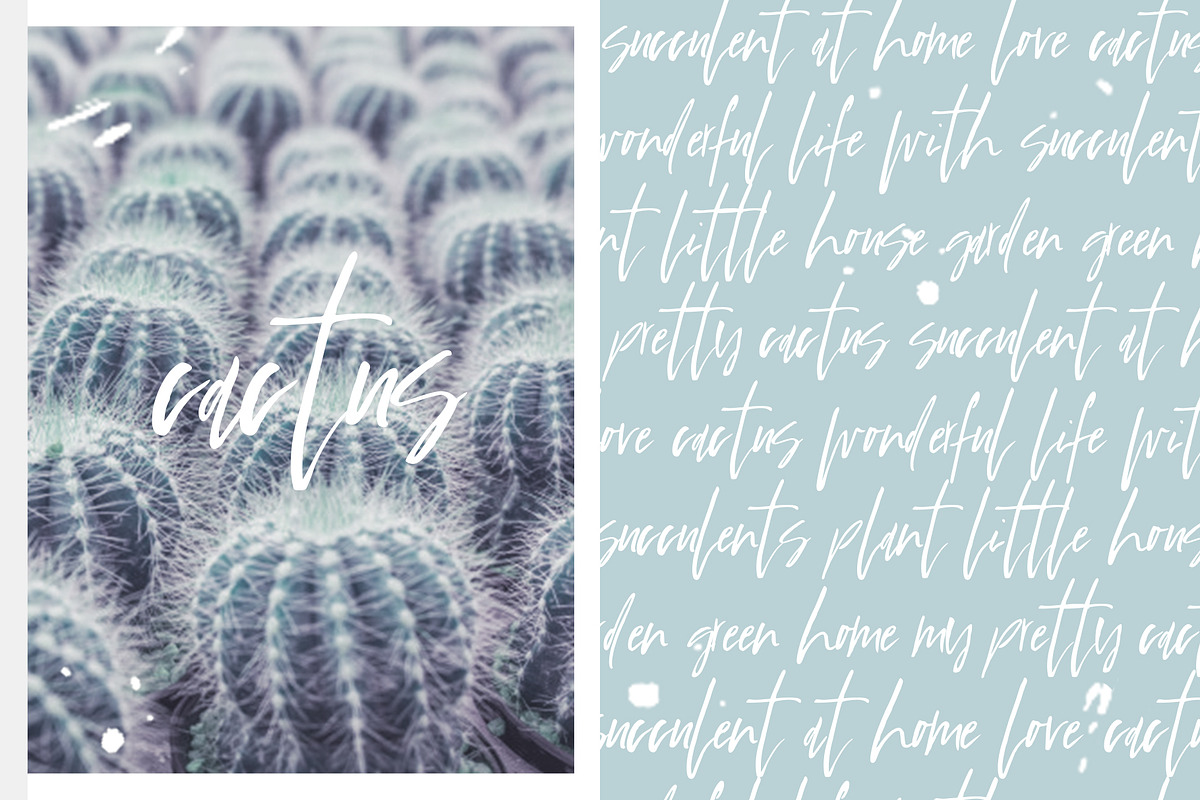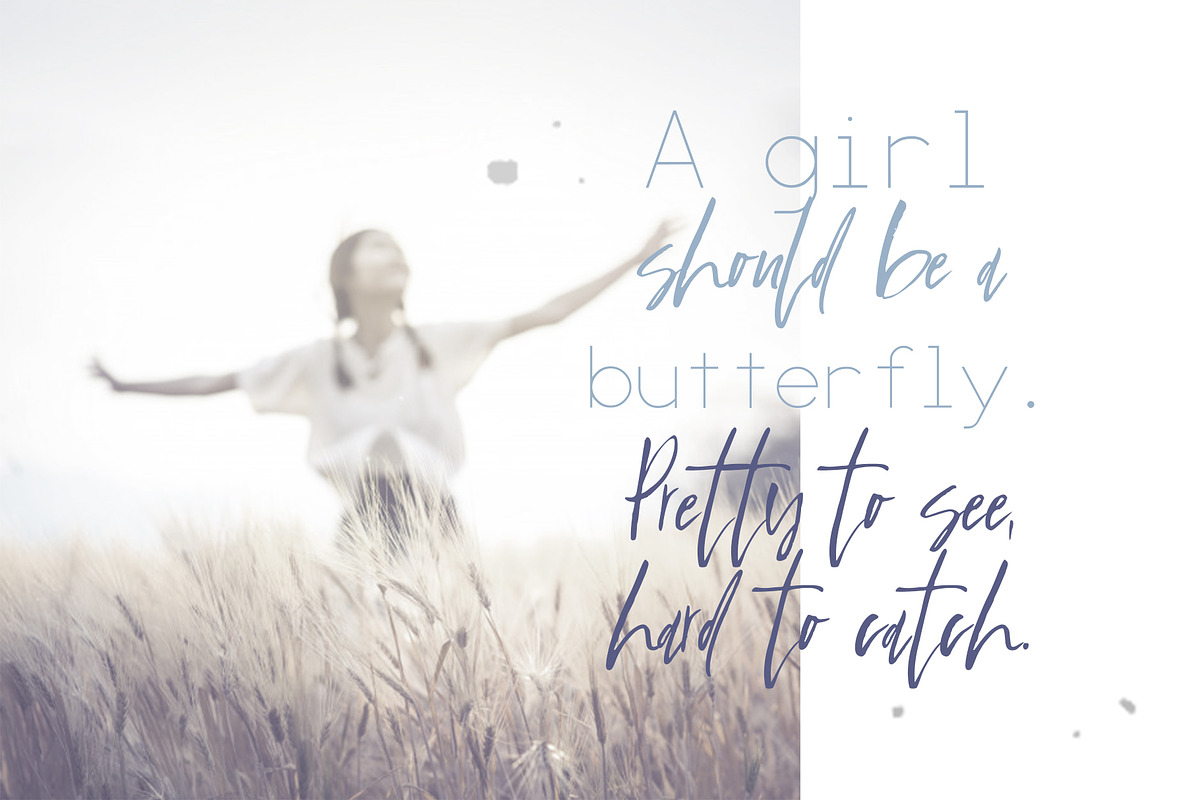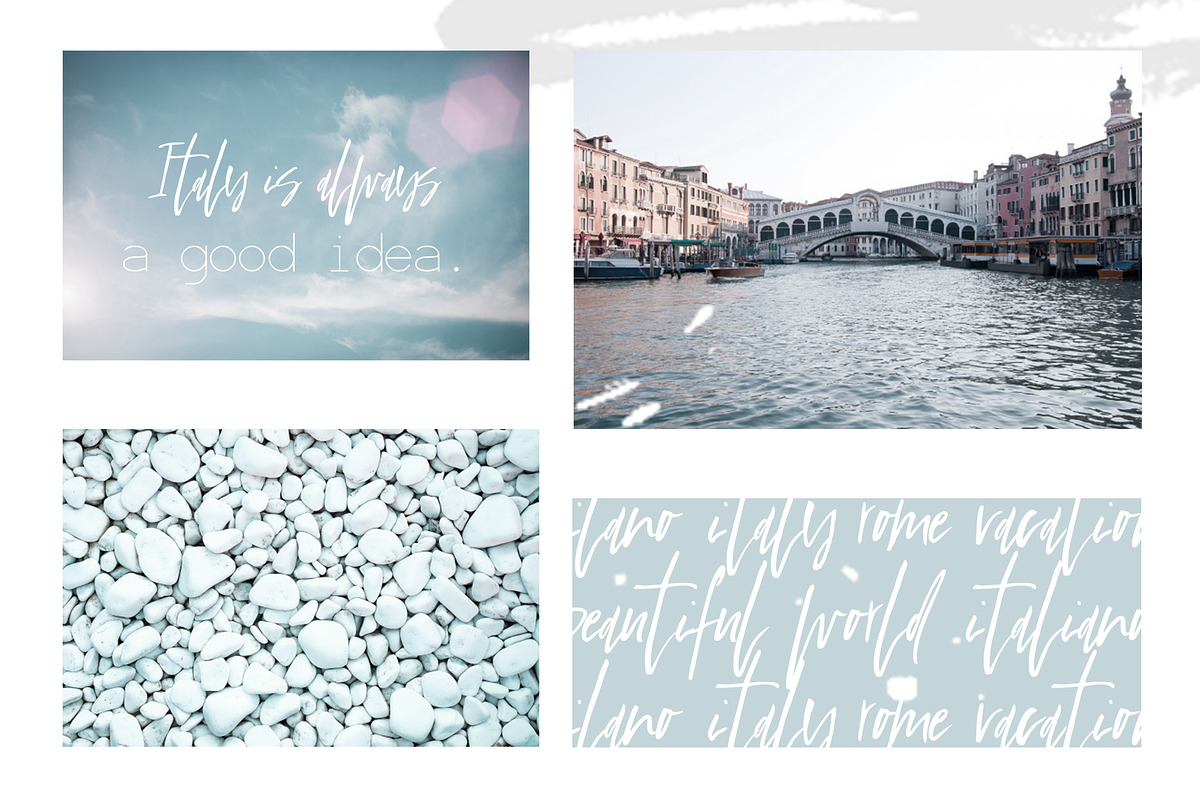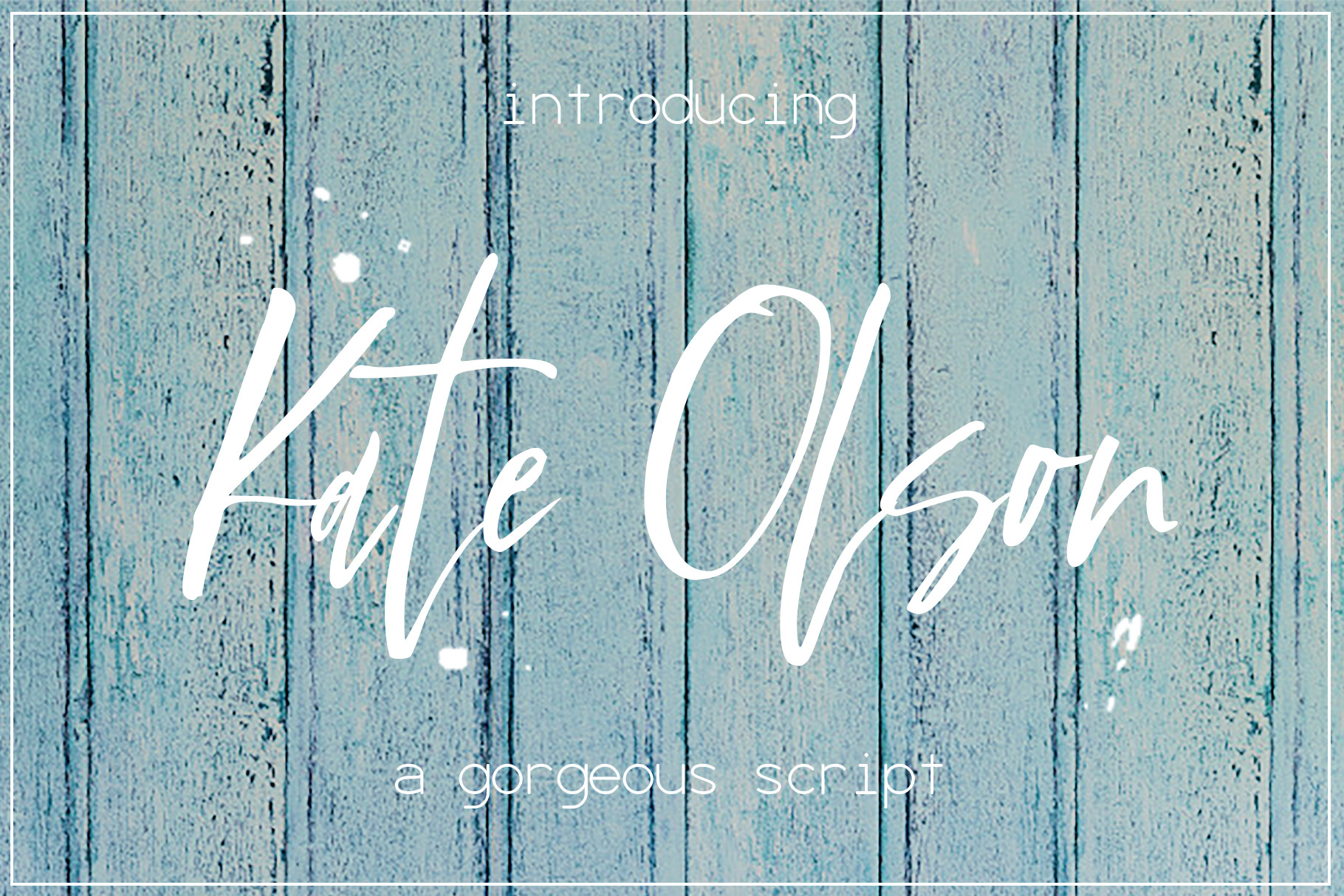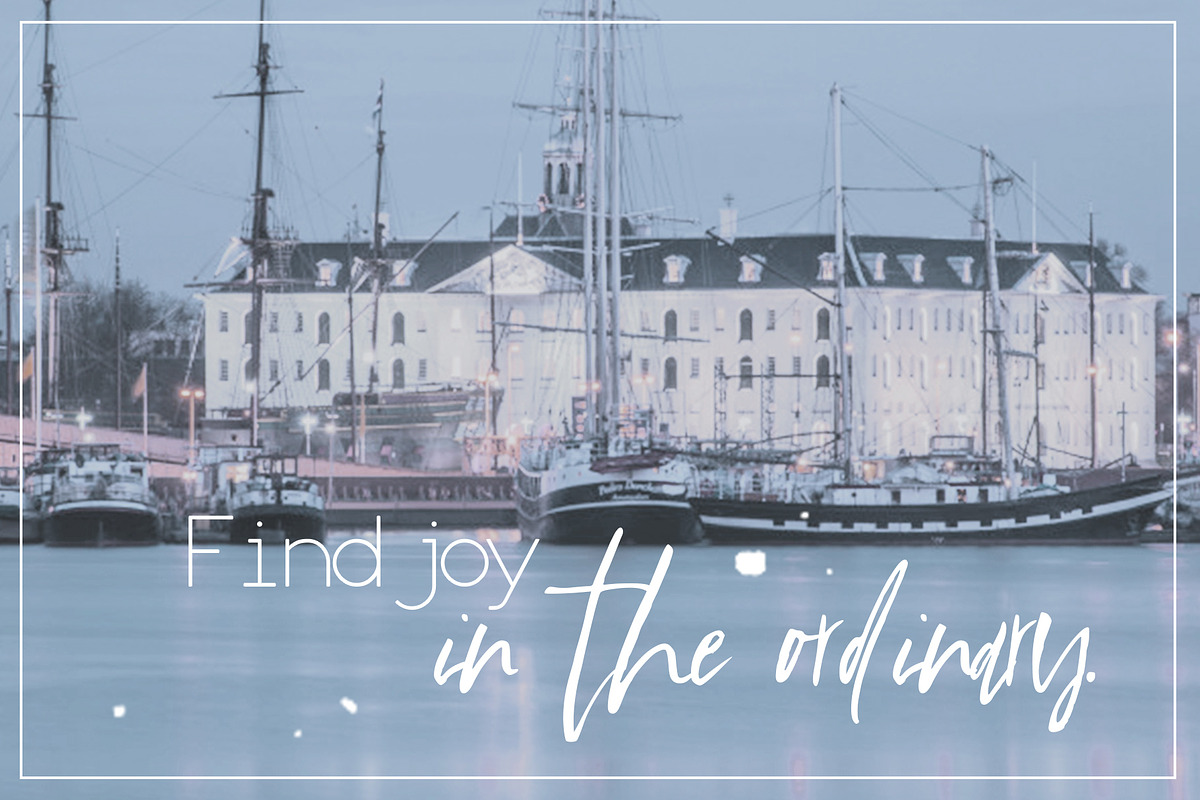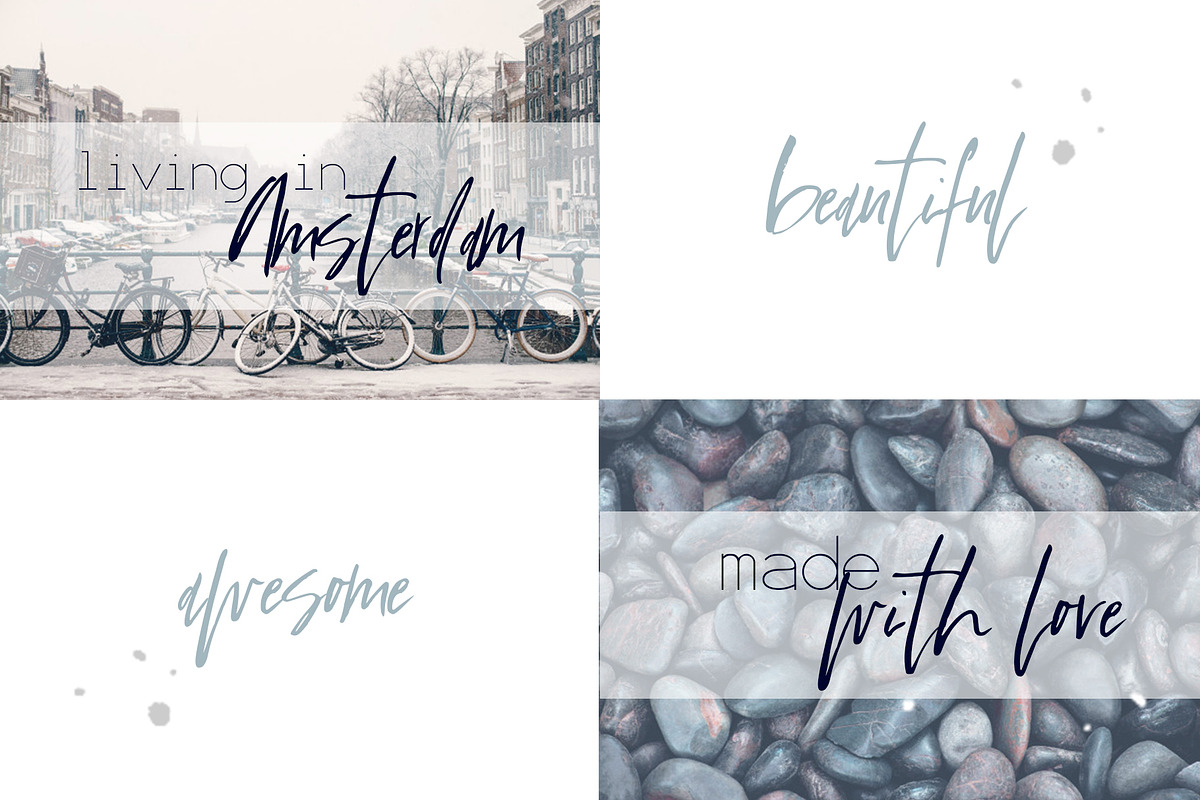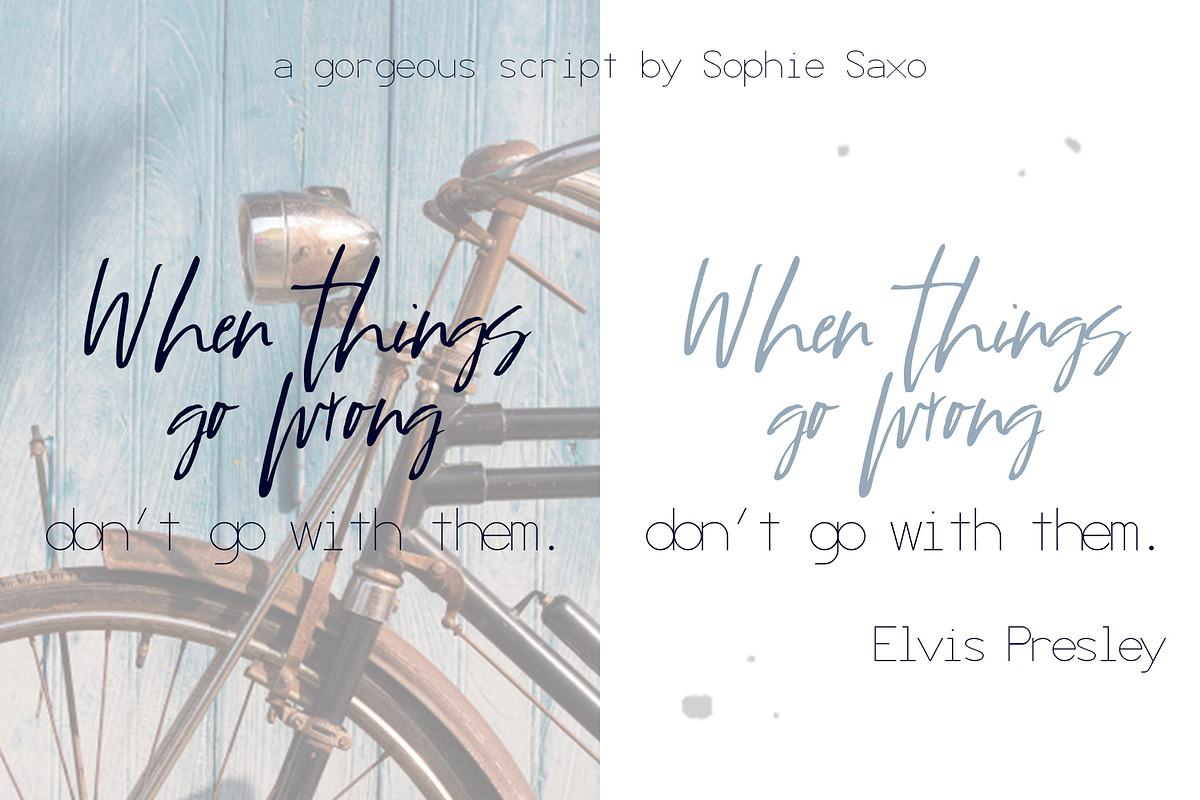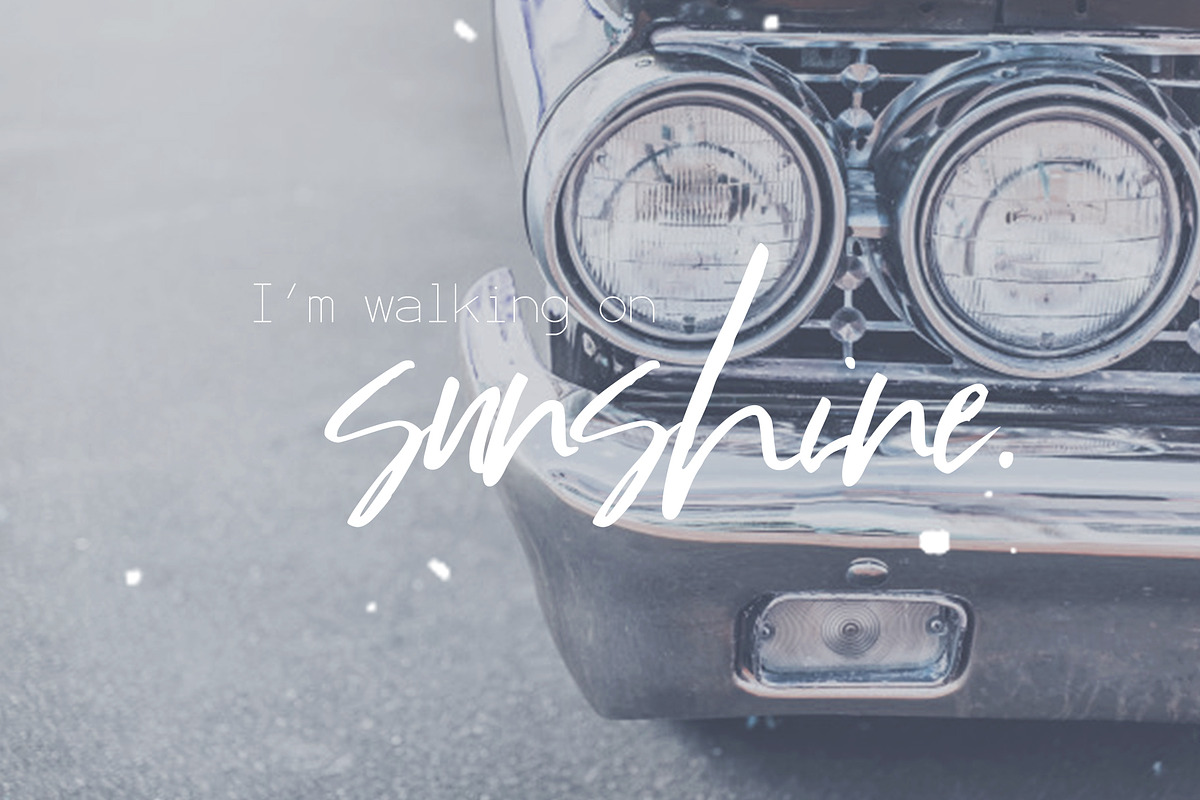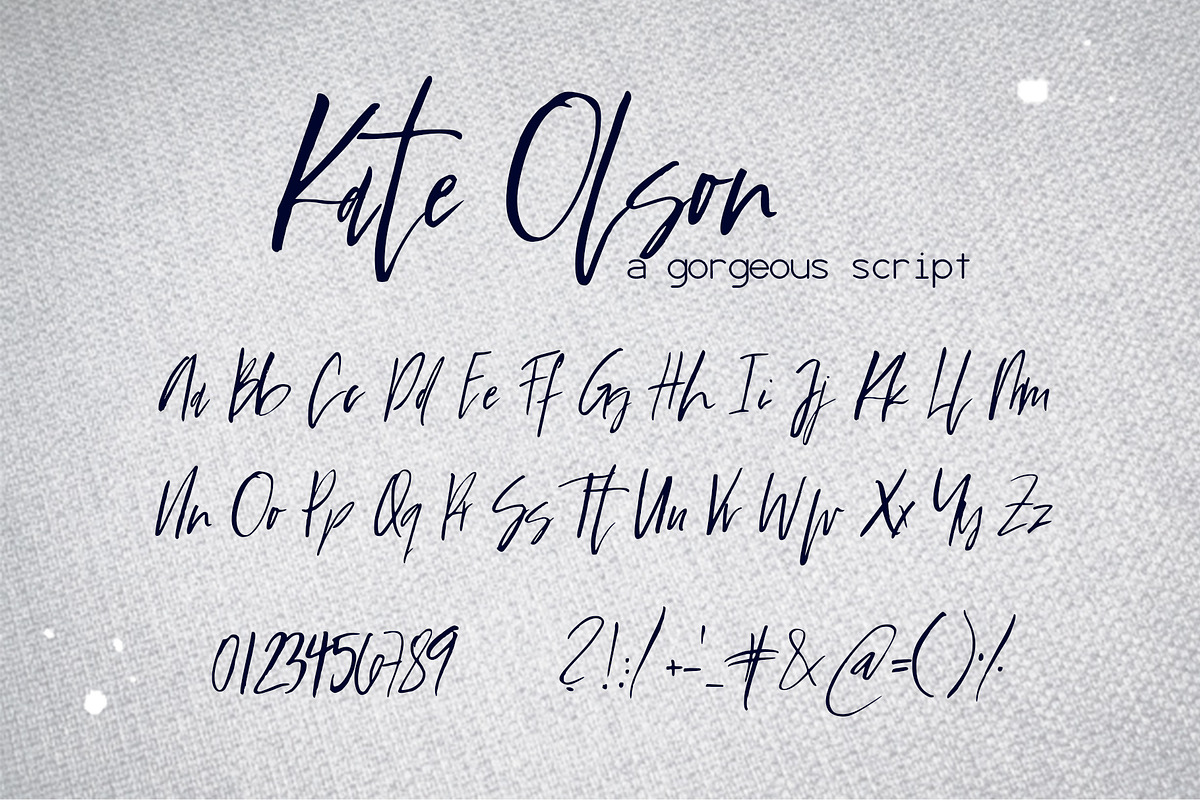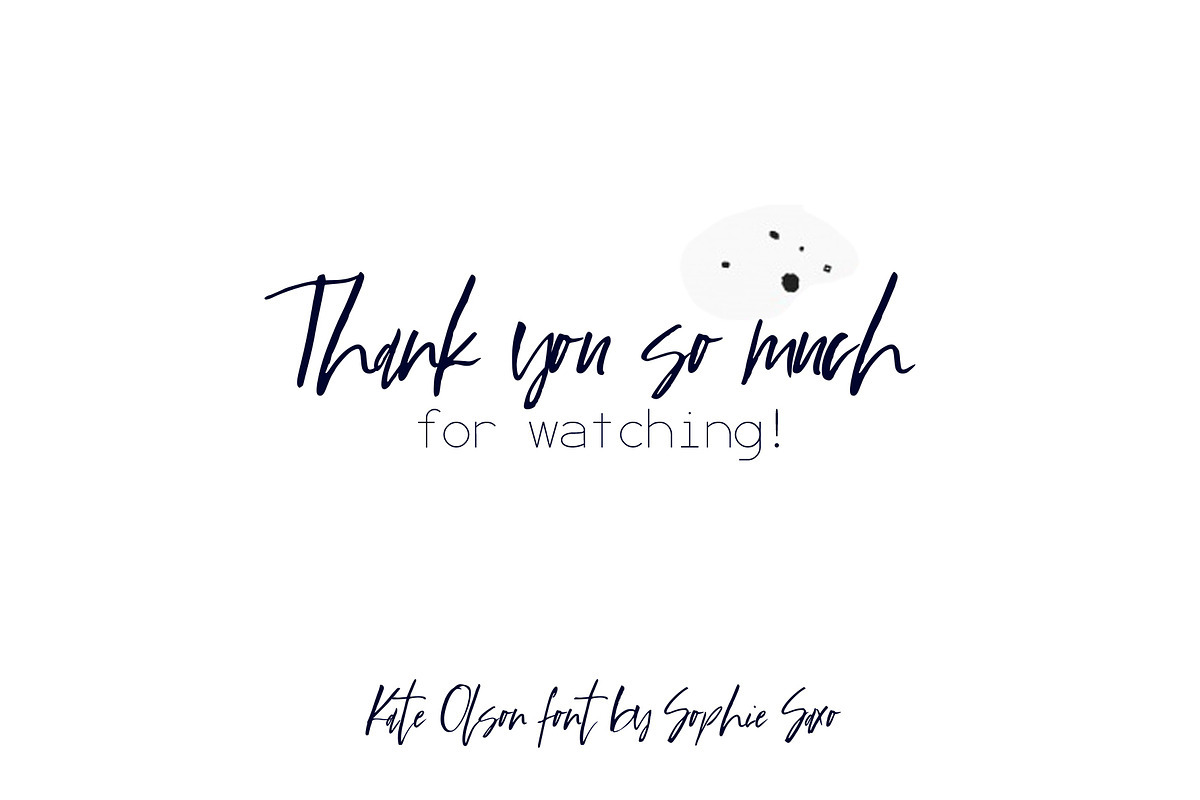
Kate Olson Font
Introducing Kate Olson, a gorgeous unique handwritten font.💗 Perfect for any calligraphic and logo designs, wedding and birthday invitations.
Kate Olson font contains upper & lowercase characters, full set of punctuation and numerals.